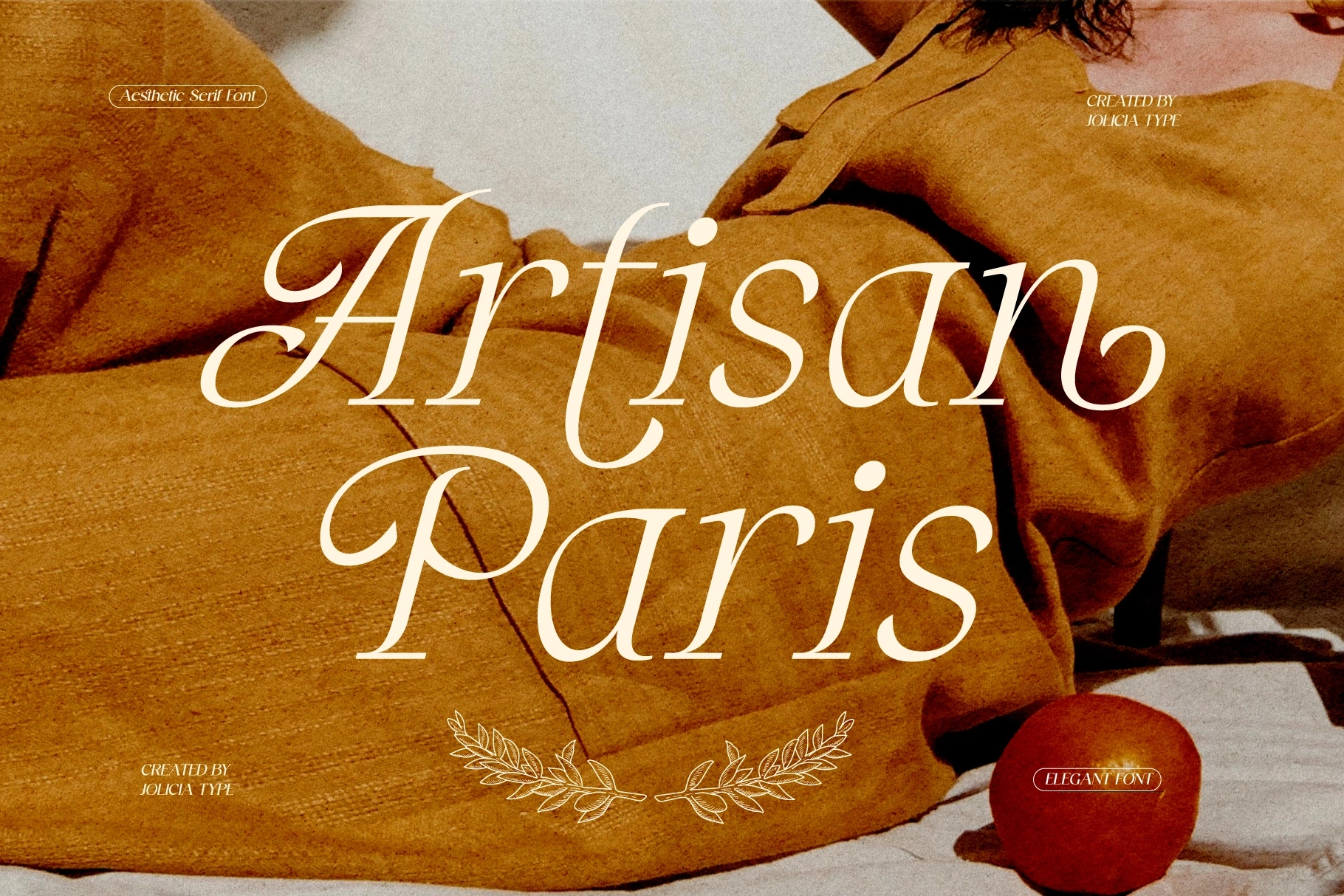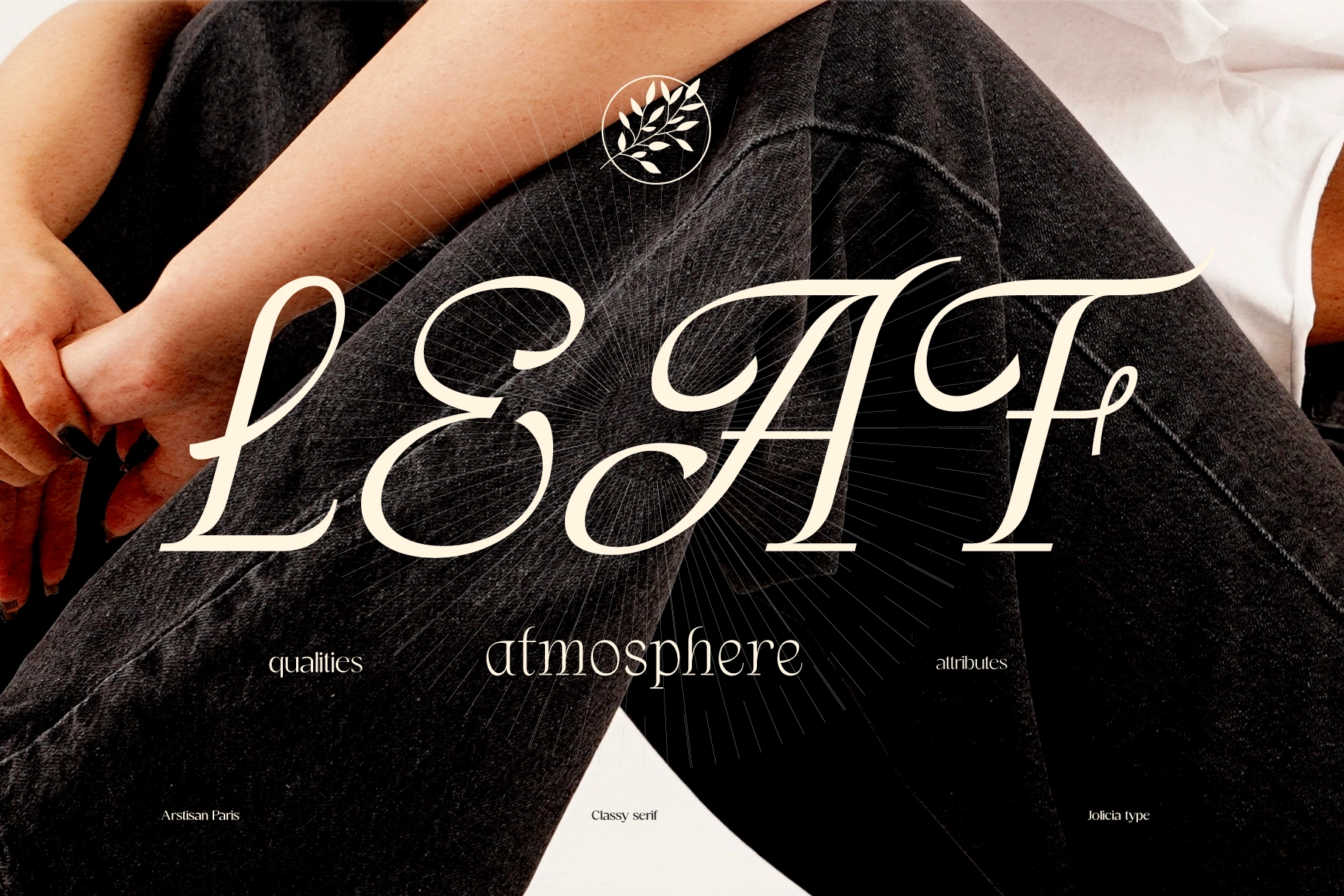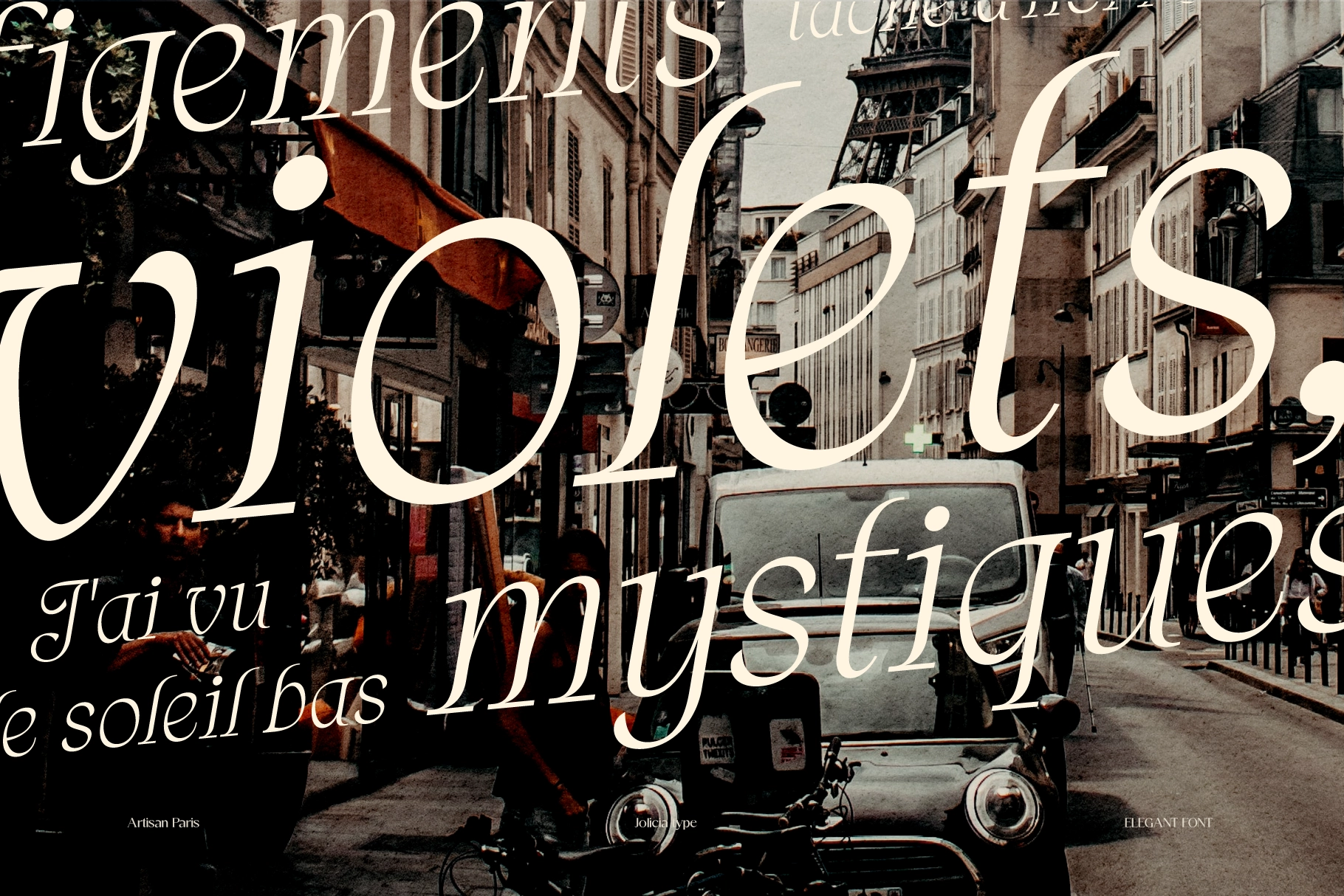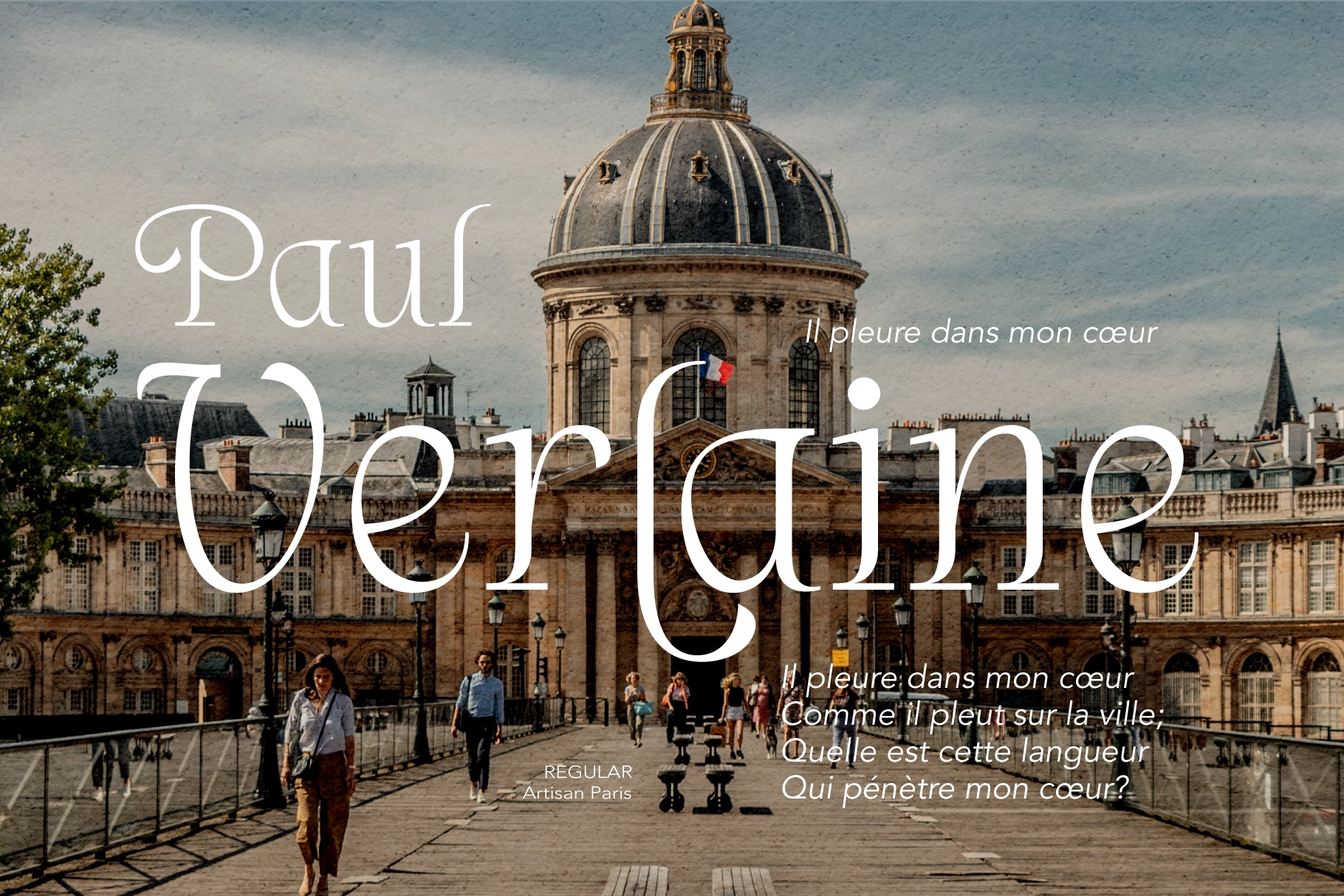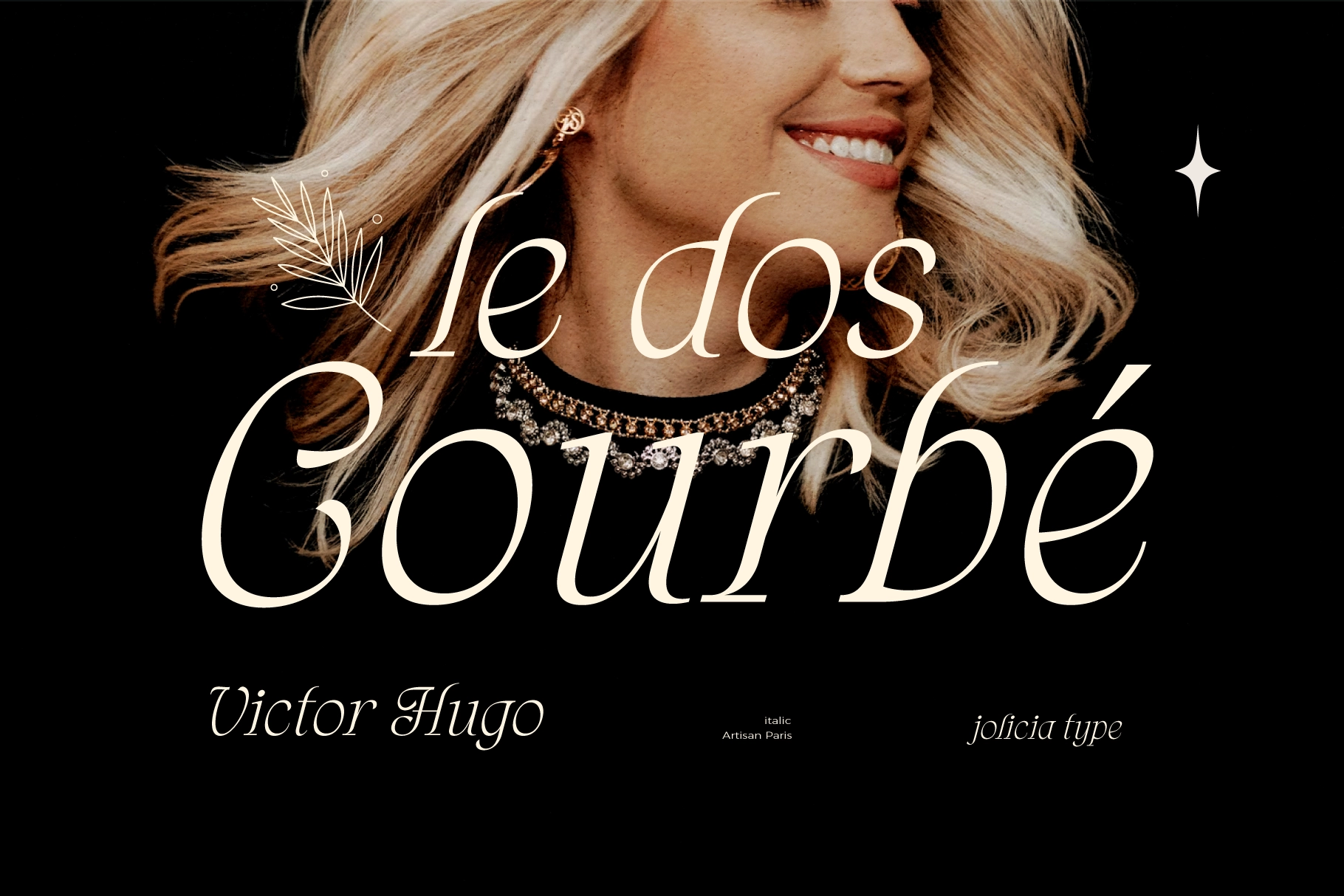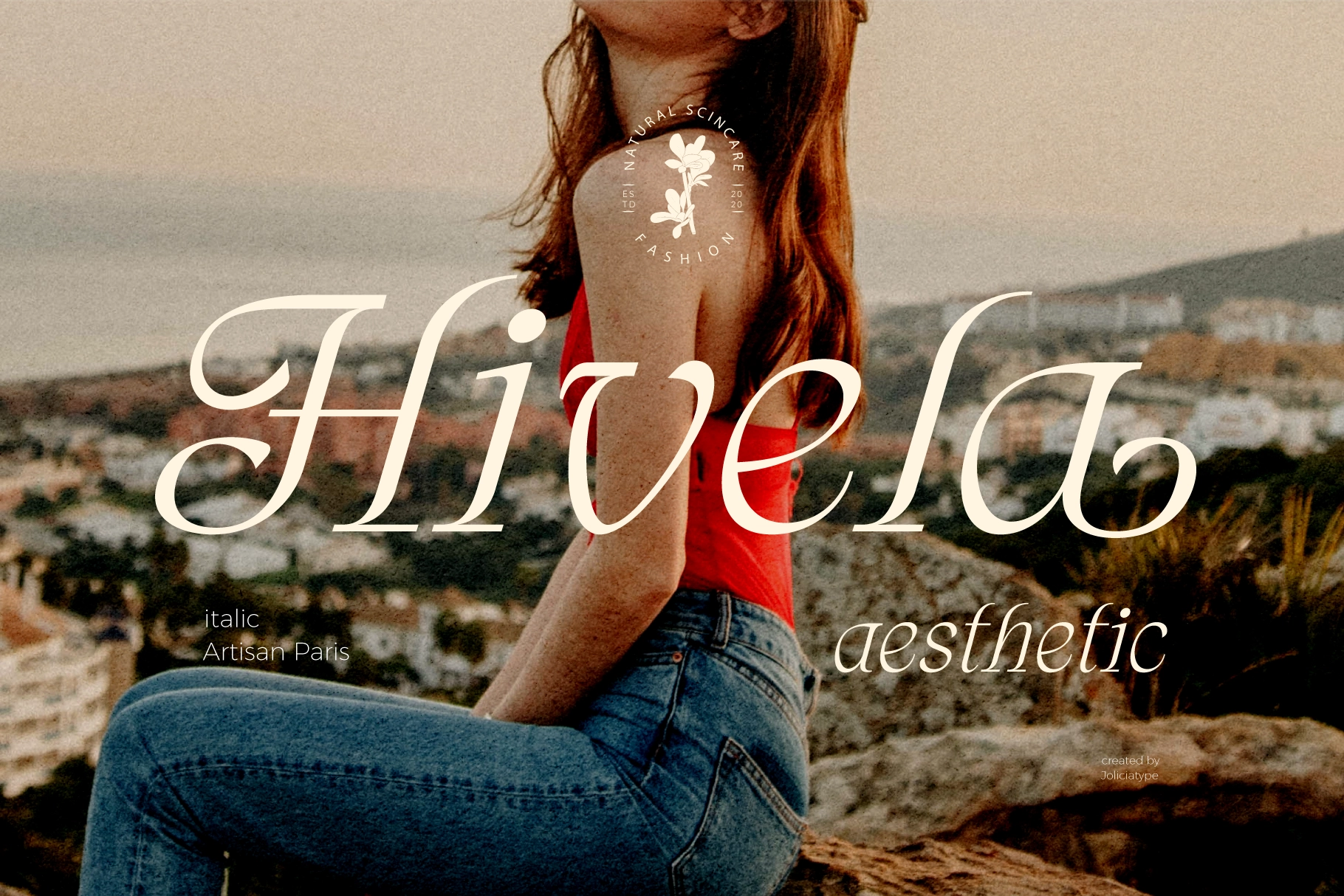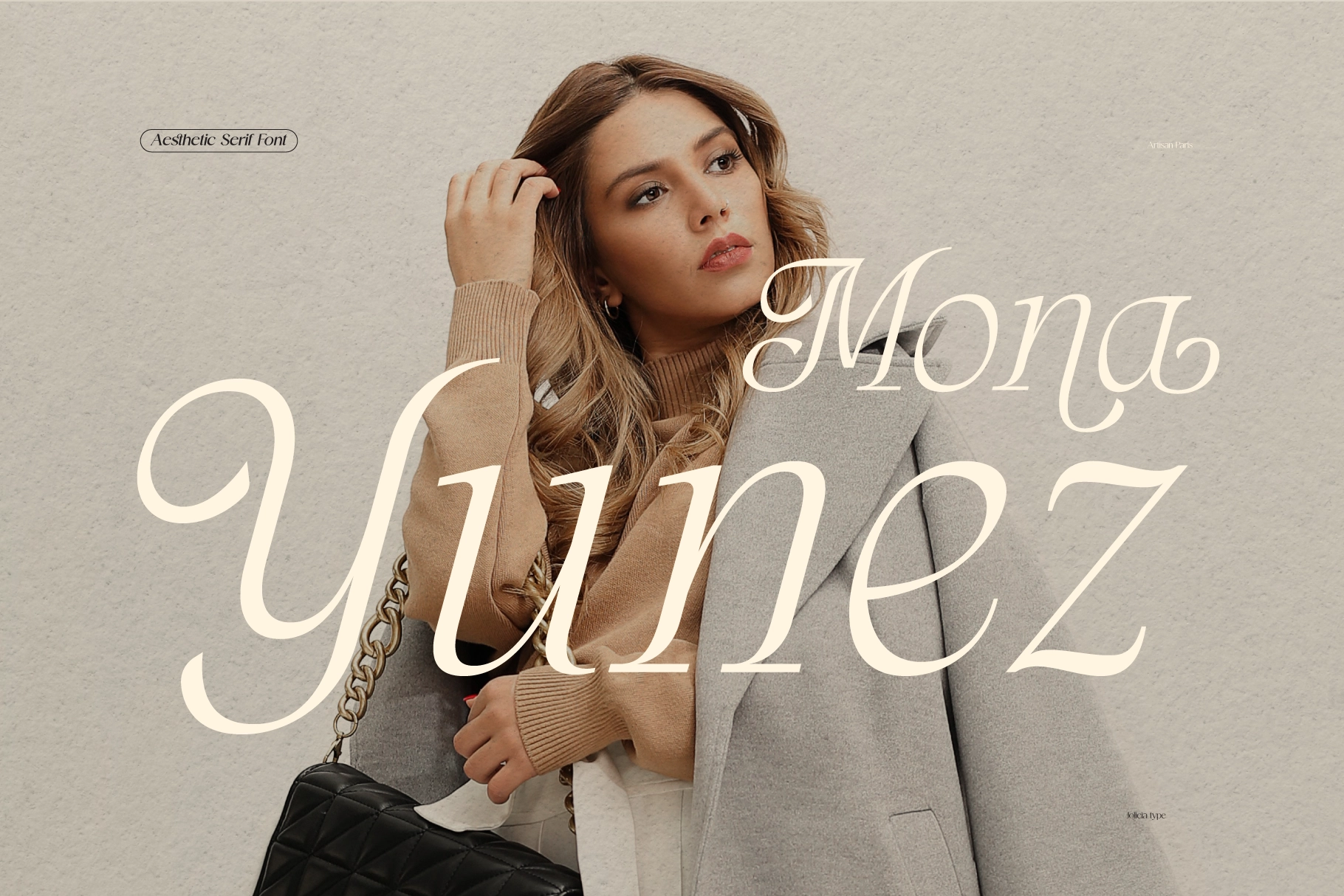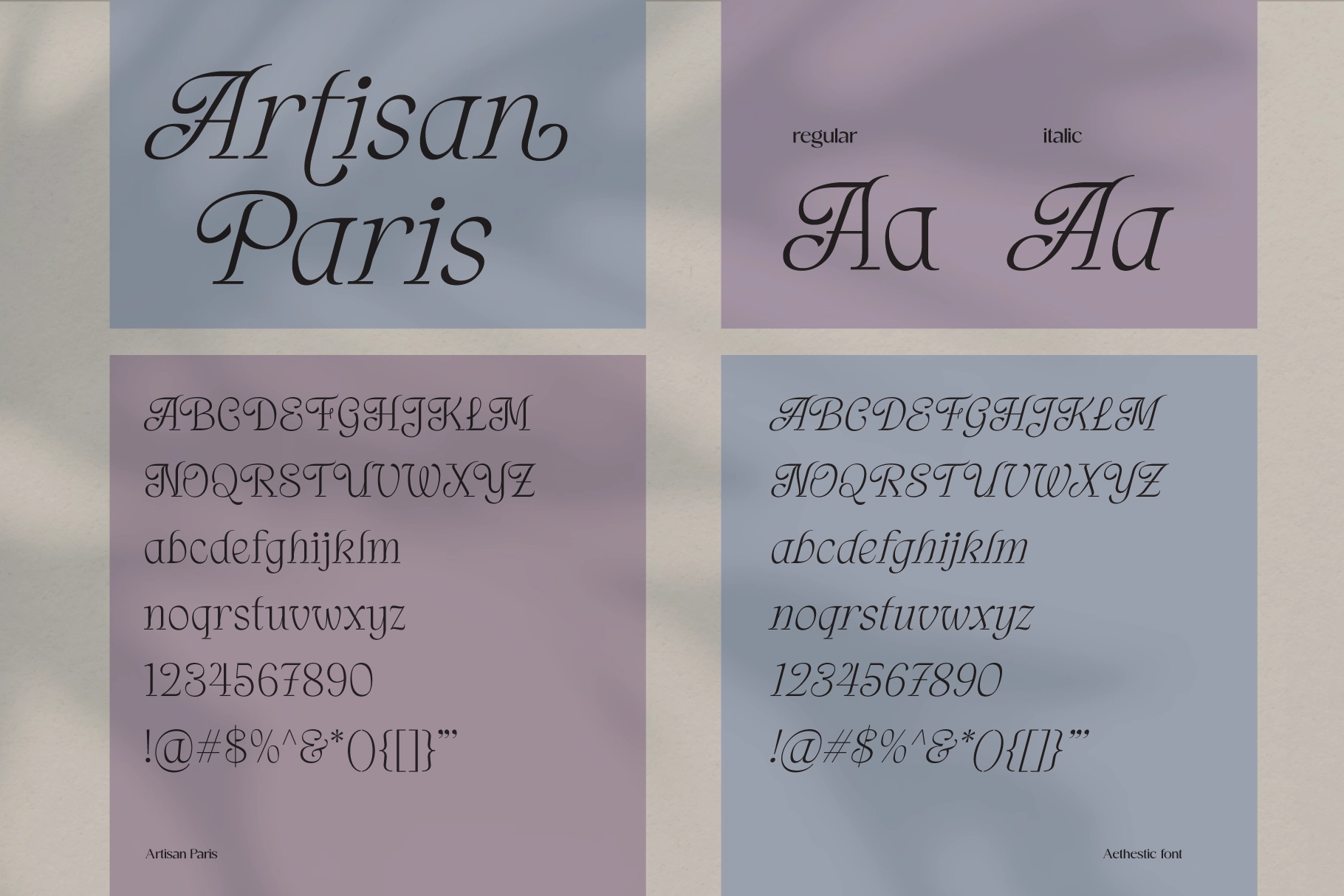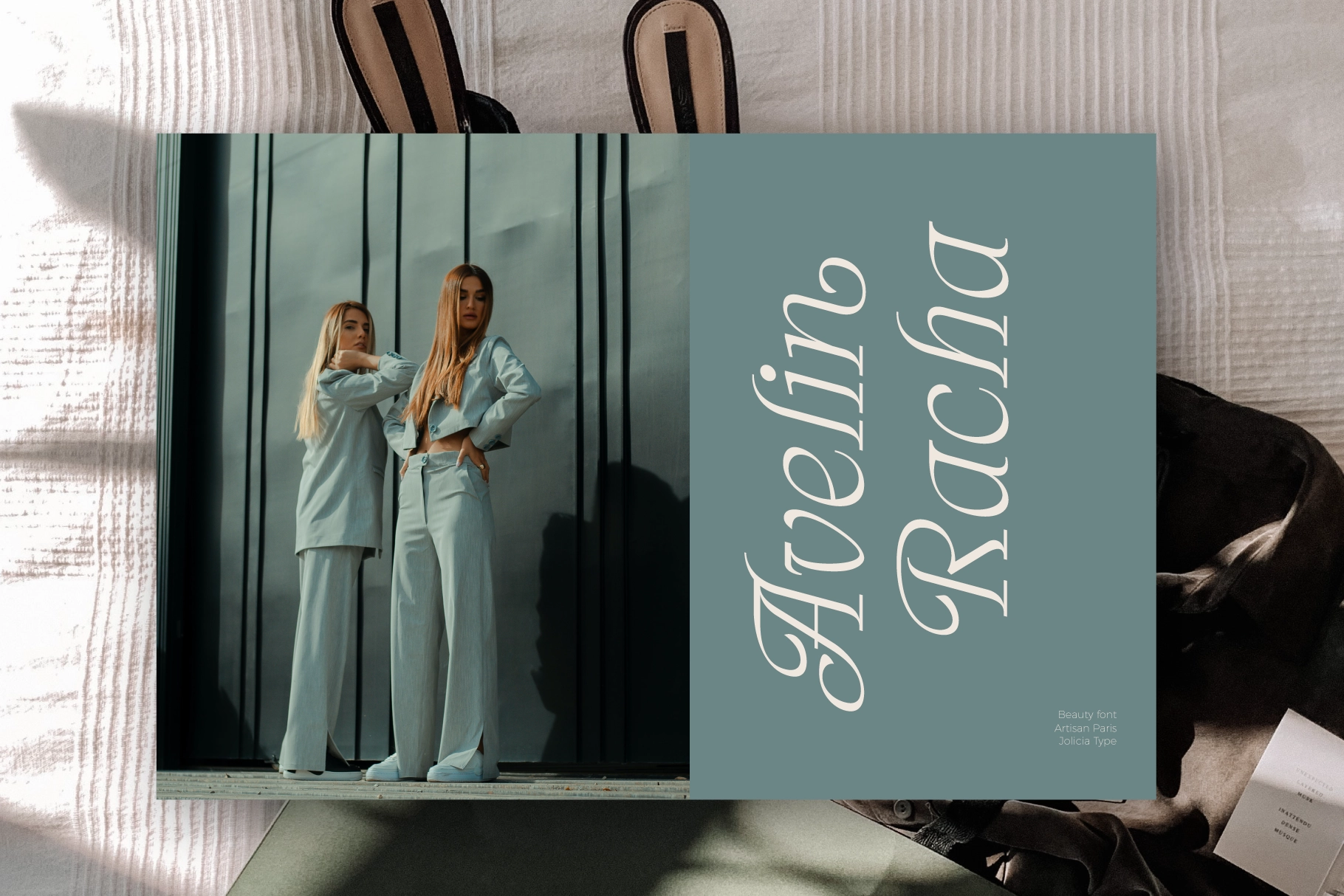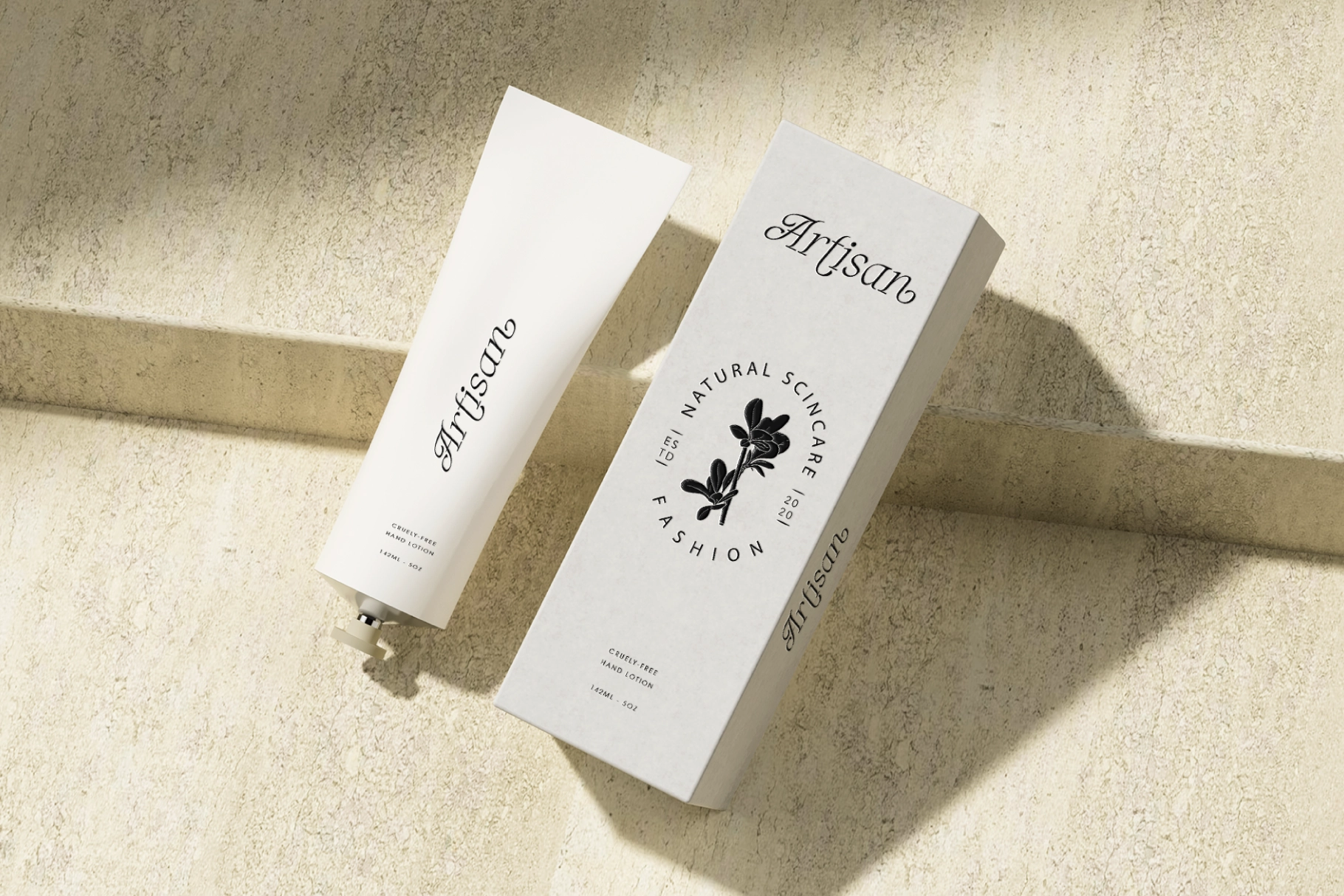
Artisan Paris – Elegant Display Serif Font
Artisan Paris is a display font that radiates signature Parisian elegance with a soft, aesthetic feminine touch. Designed to bring an elegant and charming mood, this font features a refined, graceful style that reflects Parisian beauty and sophistication. Each character is crafted with intricate detail, enriched by delicate curves and decorative ornaments inspired by the artistry of Parisian craftsmanship.
Artisan Paris comes in two style options: Regular, which offers a balanced and graceful look, and Italic, which feels more dynamic and playful for more expressive design explorations. This font is perfect for headlines, titles, branding, invitations, and various design projects that call for an elegant, feminine touch with a strong character. Carefully created by a team of professional designers, Artisan Paris reflects a dedication to capturing the timeless essence of Parisian beauty and elegance.
- Uppercase & lowercase characters
- Elegant ligatures
- Alternate characters
- Regular & Italic styles